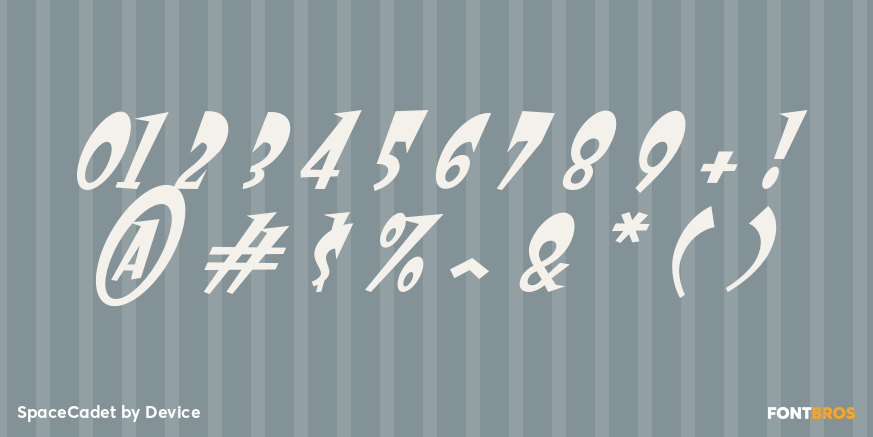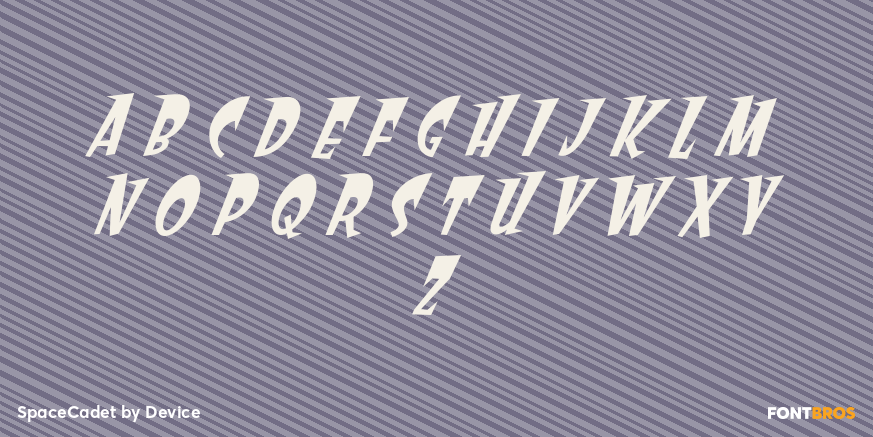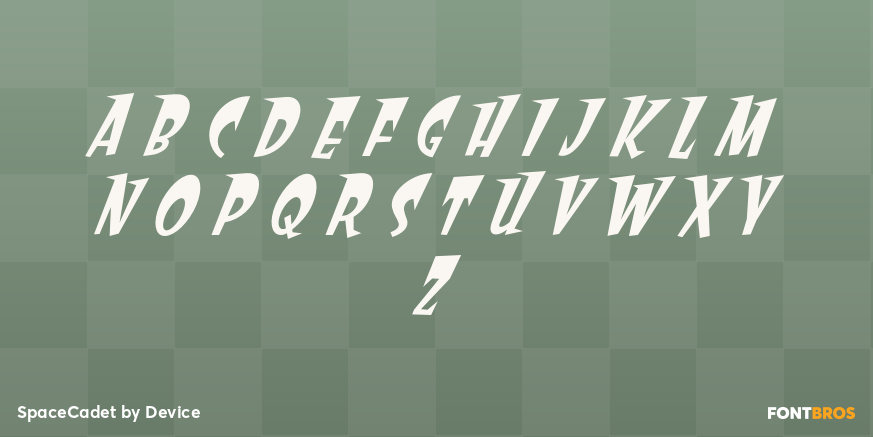
SpaceCadet
Font Family by Device
SpaceCadet is a single-style display font from Device with a distinctly retro-futuristic, Art Deco feel. Its look suggests streamlined geometry and vintage sci-fi influence, giving headlines and standout typography a stylized, era-spanning personality that feels both nostalgic and forward-looking.
Tagged with references to the 1920s through the 1960s, this design is well suited to poster work, branding, packaging, signage, and other display settings where you want a bold graphic voice. If you're after typography that blends deco elegance with mid-century space-age attitude, this family brings that mood into clear focus.